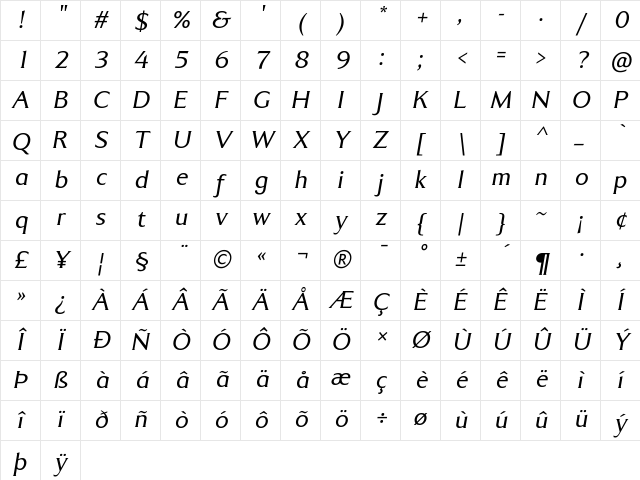
LT Sip Text Regular
Designer: Daniel Lyons
LT Sip Text Family
Design Context for LT Sip Text
LT Sip Text is a composed and adaptable typeface that performs quietly and consistently across a wide range of design contexts. Its slender proportions lend an understated elegance to any composition.